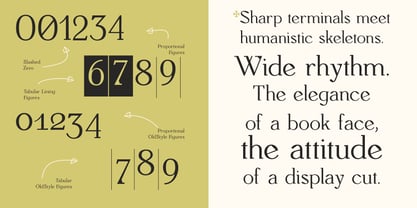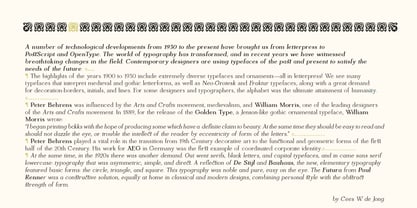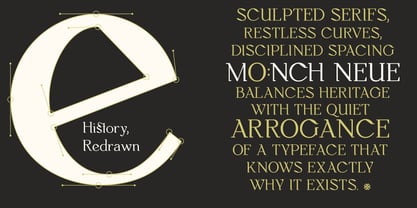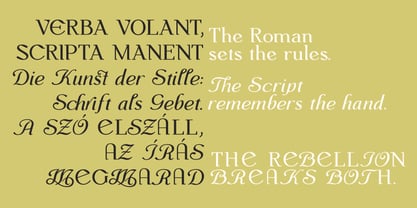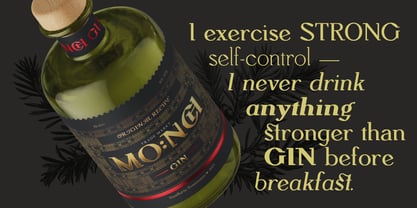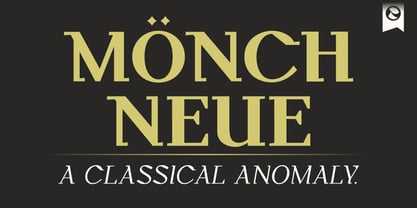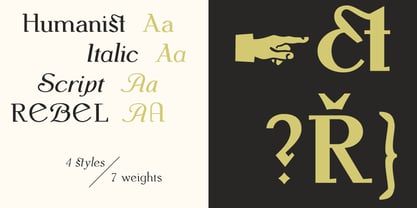
Monch Neue
by Monovo
Mönch Neue is a luxury serif family available in 4 styles and 7 weights, designed for editorial work, brand identity, and typographic systems that require historical depth without visual noise. It features sharp terminals, restless curves, and disciplined spacing, along with two styles that break the classical frame: a flowing Script and a Rebellion that abandons it entirely. Mönch Neue draws inspiration from two early twentieth-century designs that approached the same cultural moment from opposite directions. Peter Behrens' Behrens Antiqua (1907) embodies the energy of early modernism with constructed forms, sculptural terminals, and proportions that defy expectations. In contrast, Anton Durstmüller's Mönch Antiqua (1912) maintains a composed demeanor with a calmer rhythm and classical discipline, making it well-suited for book typography traditions. The concept behind Mönch Neue was straightforward: what occurs when these two voices are compelled into conversation? This is not about reconstruction or revival in the conventional sense, but rather a synthesis—an exploration of both designs, redrawing and translating structural ideas from early twentieth-century design into a contemporary context. While Roman and Italic styles uphold classical structure, the Script style recalls the organic, continuous nature of hand-drawn letters, derived from the same historical DNA but liberated from the constraints of the press. Rebellion pushes this freedom further, introducing expressive alternates and rule-breaking details infused with unapologetic decorative energy. The family comprises all seven weights and all four styles, totaling 28 fonts. OpenType features include ligatures, proportional and tabular figures, oldstyle figures, slashed zero, and extended European language support. History is not merely something to photocopy; it is a subject to engage with critically.